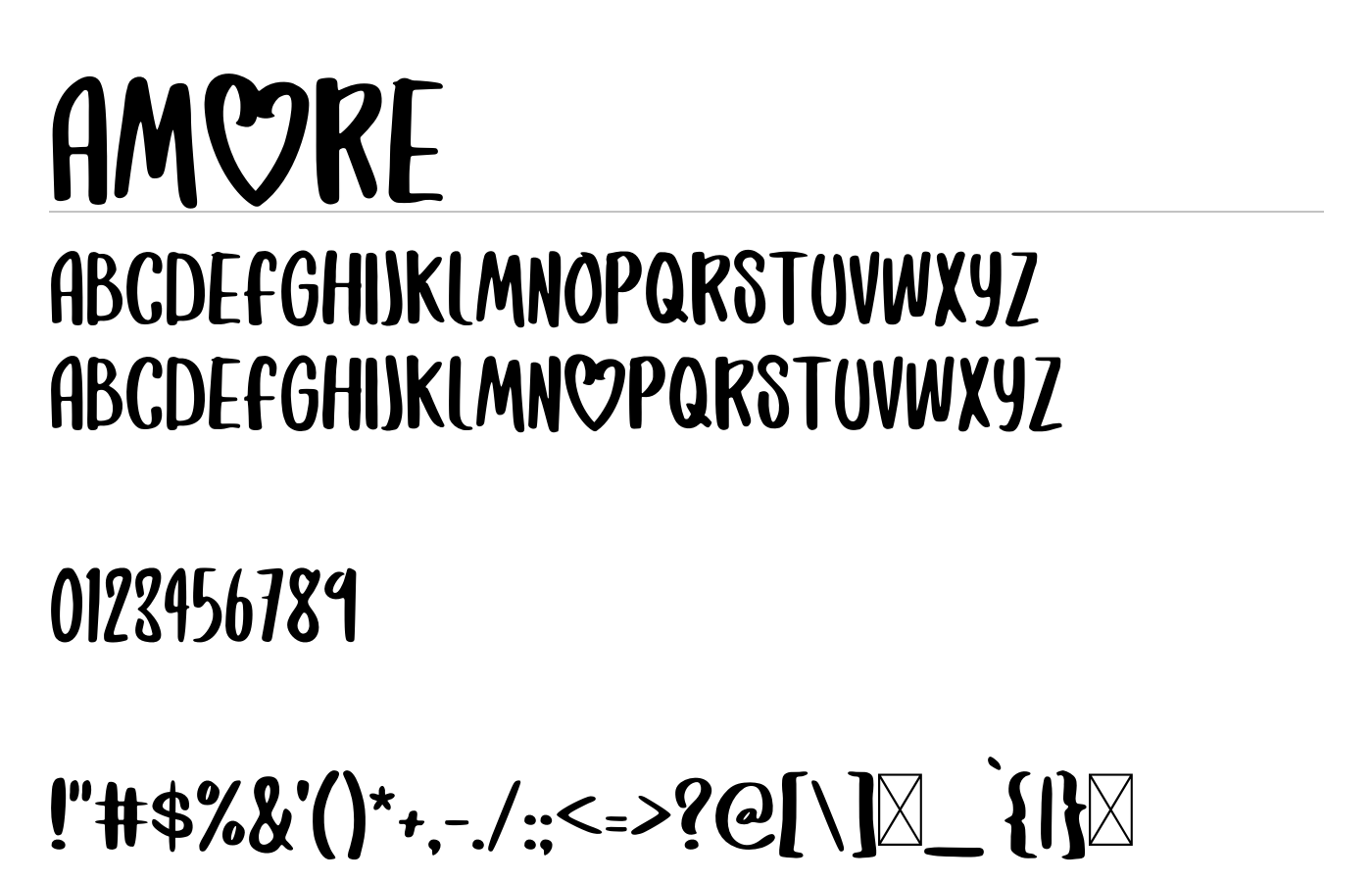
Amore Font is a playful and casual sans-serif typeface with tall, narrow letterforms and a charming hand-drawn feel. Its uneven strokes and quirky heart-shaped alternative characters add warmth and personality, making it ideal for creative projects, greeting cards, or brands seeking a friendly, approachable style. This font works best in headlines, logos, and informal designs where a personal touch is desired.
Amore Font
About Amore Font
| Font family | Amore Font |
| Designer | Juan Miguel Castillo |